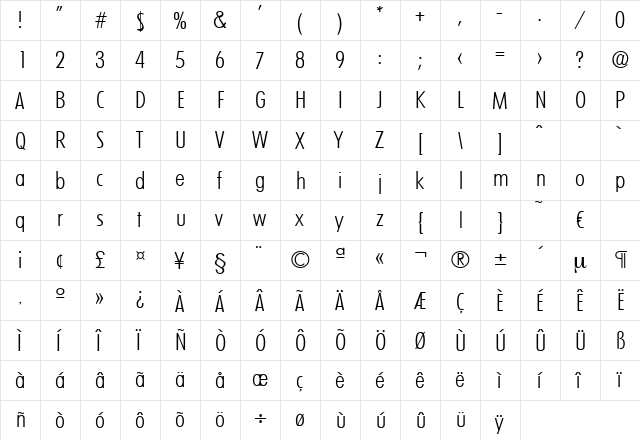
Limerick-LightCond Regular
Design Context for Limerick-LightCond Typeface
Limerick-LightCond is a composed and adaptable typeface that performs quietly and consistently across a wide range of design contexts. Its slender proportions lend an understated elegance to any composition. The condensed width makes it efficient for tight spaces without sacrificing legibility.